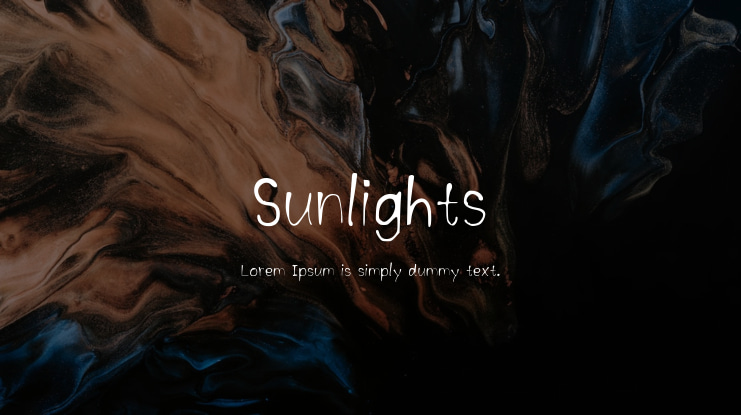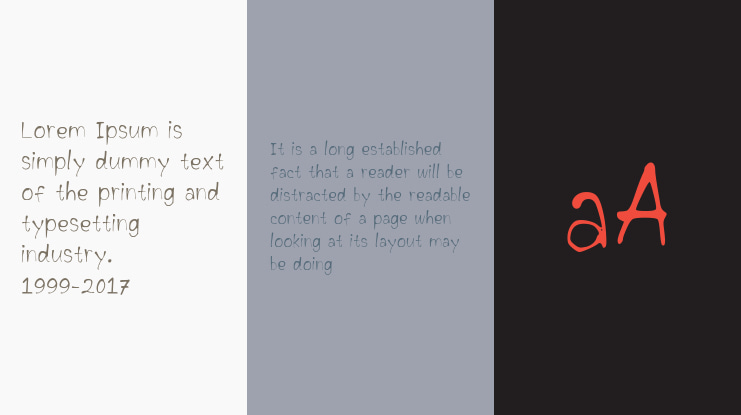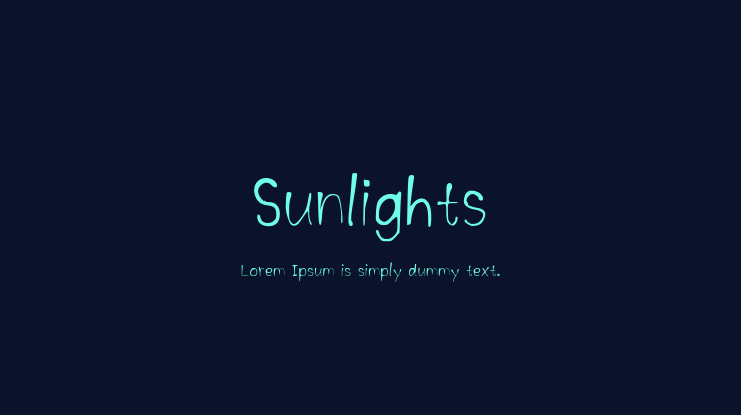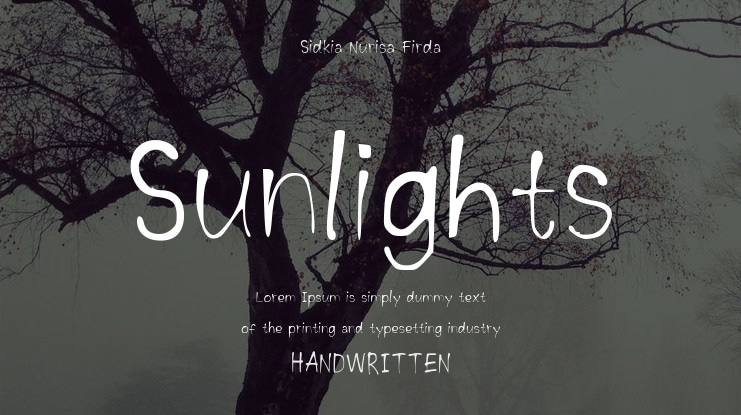
Sunlights Font
Sidkia Nurisa Firda
Sunlights is a delicate and unique handwritten font. Incorporate it into your creative projects and enjoy the results!